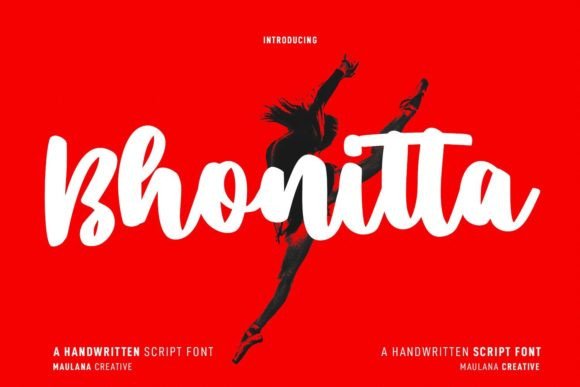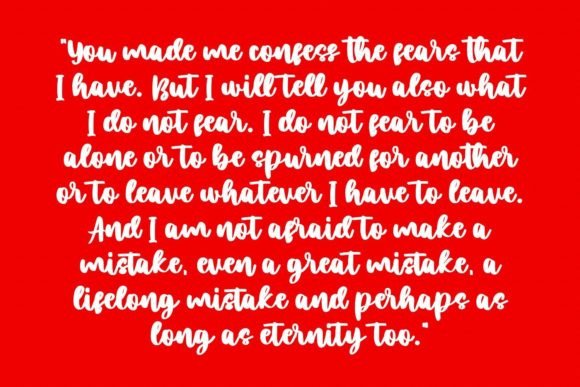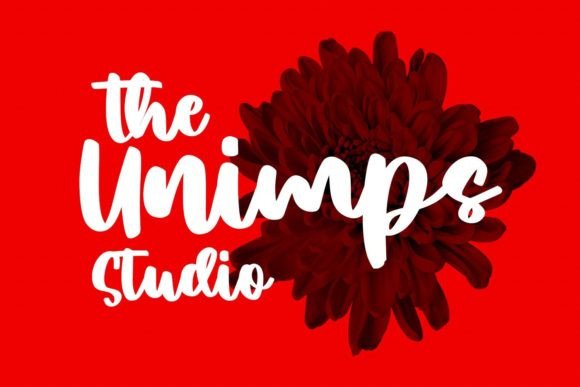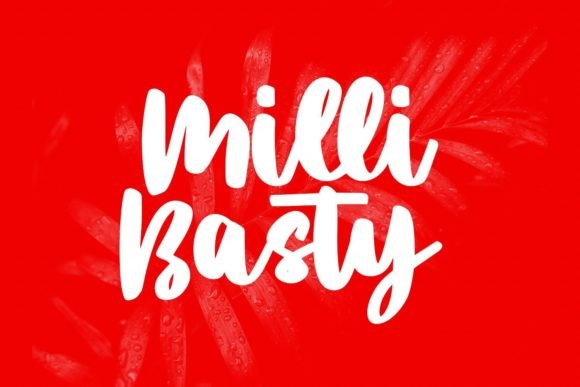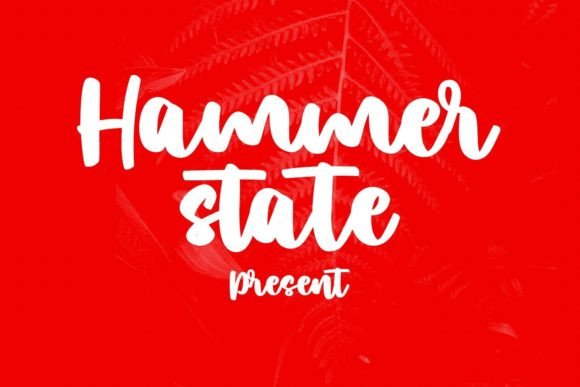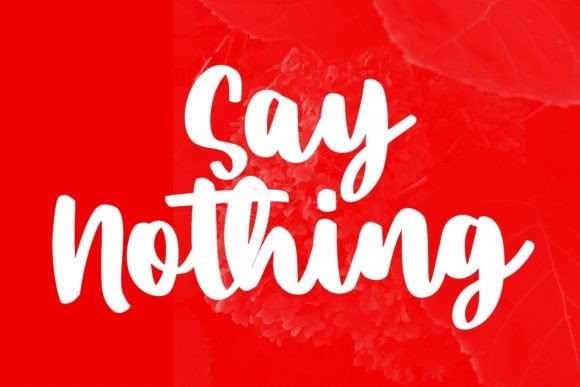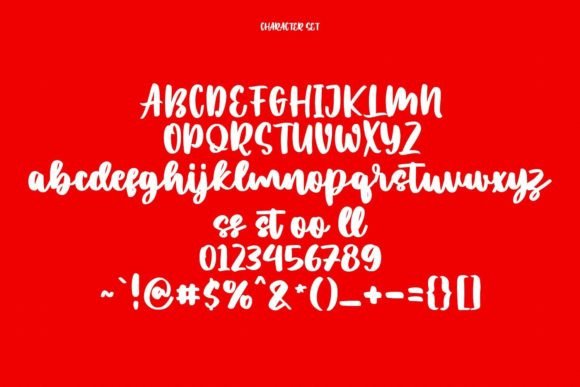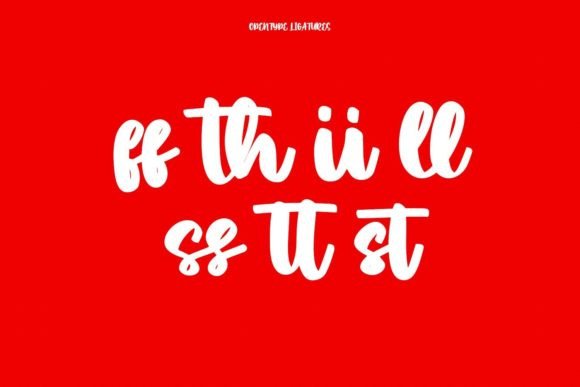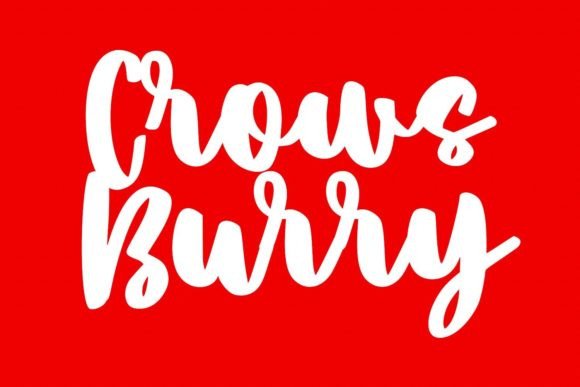
Bhonitta Font
About Bhonitta Font
Bhonitta, with its fancy handwritten script, is a font that possesses a unique charm, capable of elevating your design projects to new heights. Its bold strokes and playful characters create a joyful atmosphere, infusing your creations with a sense of liveliness and energy.
One of the remarkable features of Bhonitta is its ability to strike a balance between elegance and fun. The boldness of its strokes adds a touch of sophistication, making it suitable for a wide range of applications. Whether you’re designing wedding invitations, branding materials, packaging, or social media posts, Bhonitta adds a delightful and stylish flair to your projects. Its versatility allows it to adapt seamlessly to various contexts, ensuring that your designs leave a lasting impression.
In the realm of branding, Bhonitta shines brightly. Its fancy and expressive nature helps brands stand out from the competition. When used in logos, Bhonitta adds a touch of personality and creativity, making the brand more memorable and relatable. The font’s fun character creates a sense of approachability, inviting customers to engage with the brand on a more emotional level.
In the realm of print media, Bhonitta transforms ordinary designs into extraordinary works of art. Greeting cards become vibrant and heartfelt, posters turn into captivating visual stories, and invitations acquire a playful and inviting charm. The font’s ability to evoke joy and enthusiasm makes it a favorite choice for designers looking to create designs that resonate with positivity and happiness.
In the digital realm, Bhonitta captures attention with its lively presence. Social media posts become eye-catching and shareable, enhancing the overall visual appeal of your online content. Blog headers, website banners, and online advertisements benefit from the font’s playful vibe, making your online presence more engaging and interactive.
The impact of Bhonitta goes beyond aesthetics; it creates a memorable experience for your audience. Its joyful touch brings a smile to people’s faces, making them connect with your designs on a deeper level. Whether you’re designing for personal projects, small businesses, or large corporations, Bhonitta adds a delightful and charismatic element that captures the essence of creativity and enthusiasm.
Incorporating Bhonitta into your creative ideas is like adding a splash of happiness to your designs. Its unique blend of elegance and playfulness transforms your projects into visually stunning masterpieces. So, embrace the joyous spirit of Bhonitta and notice how it makes your designs come alive, standing out with a vibrant and enchanting aura that captivates everyone who encounters them.